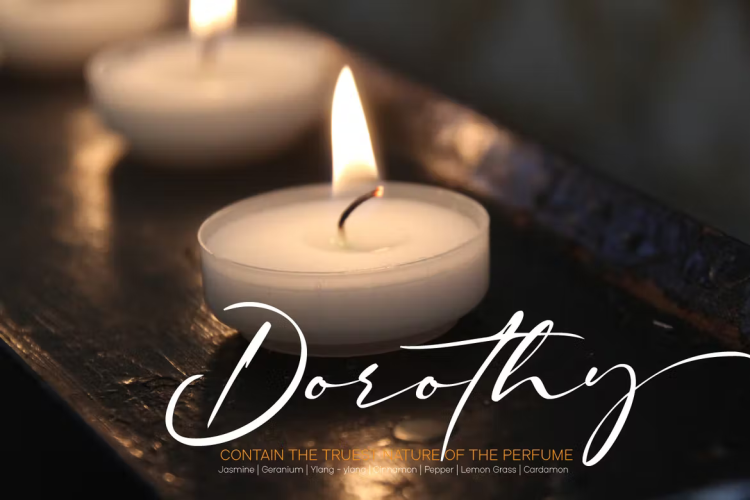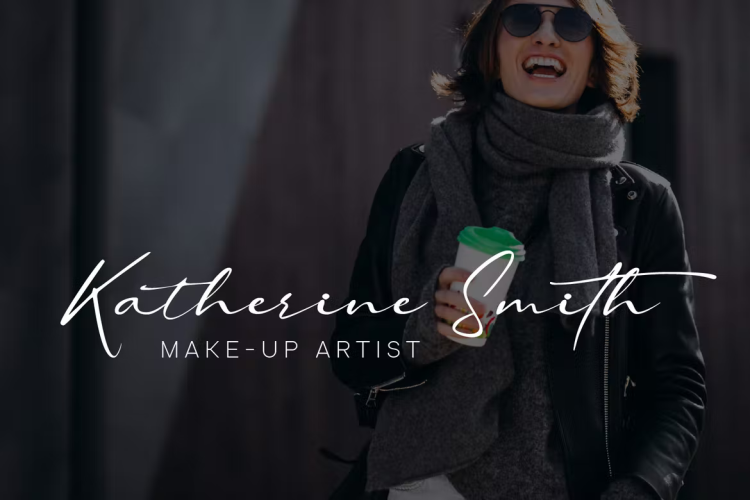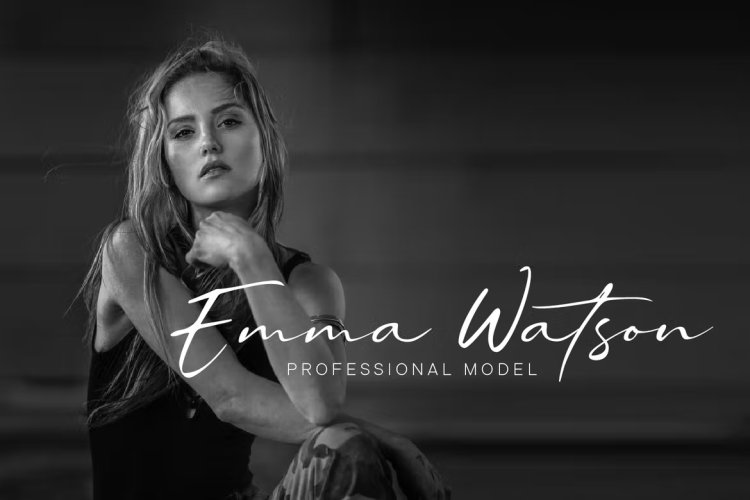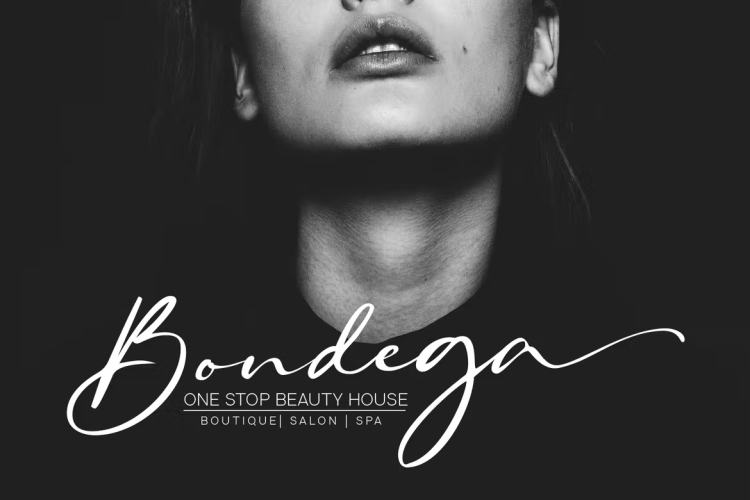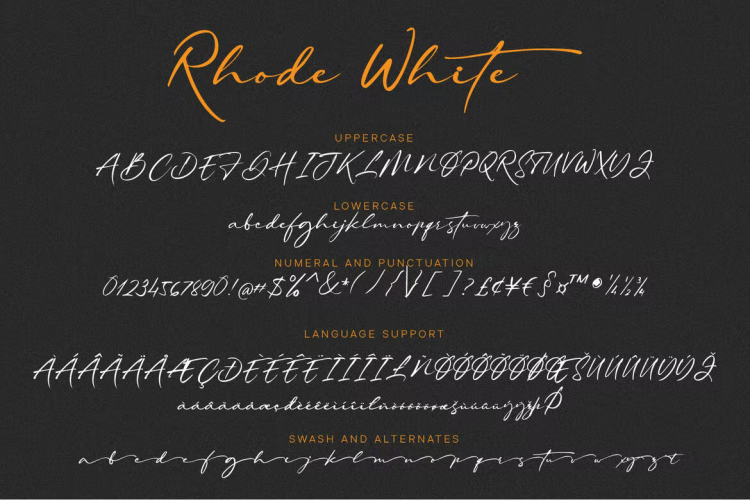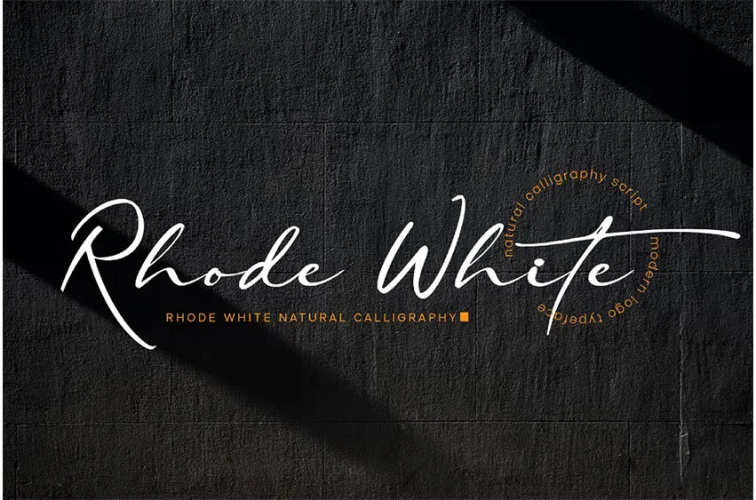
Rhode White Font
Rhode White Font is a natural calligraphy font. We created this font for modern brands. branding and branding only. The soft, unique, and natural touch give a different…
Rhode White Font is a natural calligraphy font. We created this font for modern brands. branding and branding only. The soft, unique, and natural touch give a different impression, it invites attention to take a closer look at your brand.
This is a font favored by agencies who like modern branding, you can make a large number of logos with one font because this font is suitable for use in web logos, personal signatures, portfolios, prints, header, magazines, book covers, t-shirt print, craft, and cosmetic packaging.
Where Rhode White Font works best
A short phrase in Rhode White Font carries warmth that a typeset sans cannot fake; keep the rest of the card plain.
Chalkboard-style headings in Rhode White Font make a menu feel hand-made. Keep the dish descriptions in a simple face so prices stay readable.
One line of Rhode White Font over a photo is enough; the script carries the tone and the caption does the work.
What kind of work does Rhode White Font suit?
It sits in the Script And Handwritten group and reads as branding, calligraphy, modern, script. That makes it a candidate wherever those qualities help: headings, packaging, social graphics and brand work. Set it at the size you plan to use before deciding.